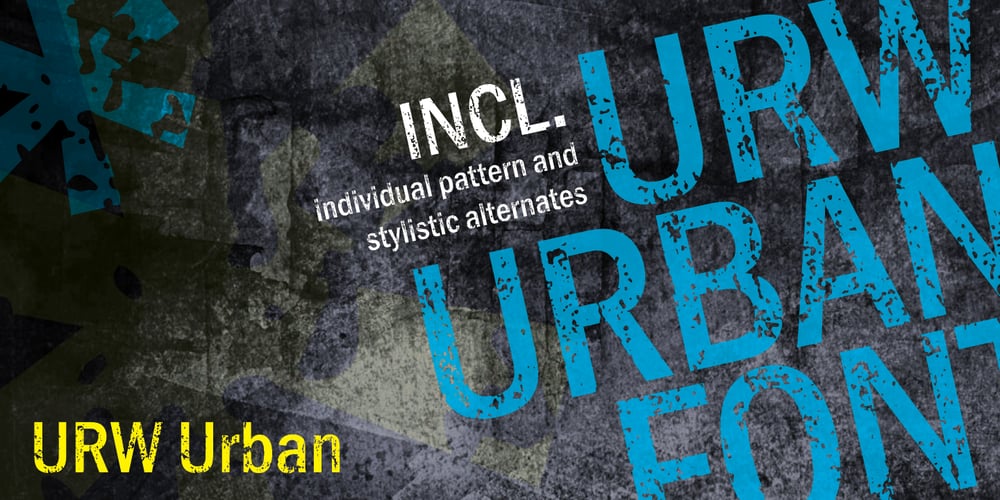
Urban Font Family was designed by Michael Hoffmann, Anita Jürgeleit, Bagas Ardiatma and published by URW Type Foundry. Urban contains 1 styles and family package options. URW Urban follows the trend of pattern fonts. Each character has been provided with an individual pattern created with a special stamp technique. To create a vivid typeface, there is a stylistic alternate for nearly every character. In this way the grotesque has a modern, unconventional look. URW Urban reflects a metropolitan lifestyle and is perfect for themes like party, music, sport and film.